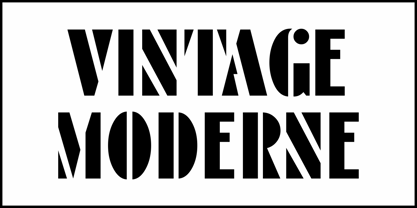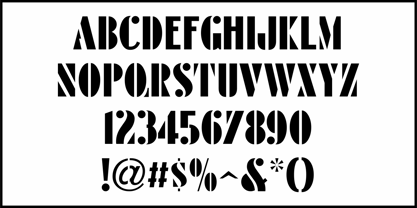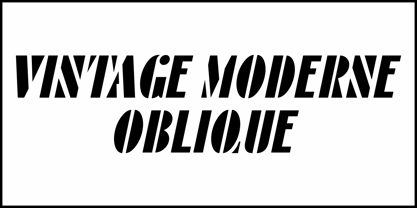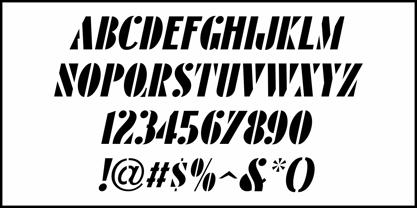
Vintage Moderne JNL
by Jeff Levine
Within the pages of a vintage Econasign catalog booklet from the UK were some sample characters from one of the many templates shopkeepers, schools and other organizations would use to make their own signs and posters. The lettering style is a condensed derivation of Futura Black, a stencil-themed typeface found just about everywhere duting the Art Deco era and beyond. This served as the model for Vintage Moderne JNL, which is available in both regular and oblique versions.